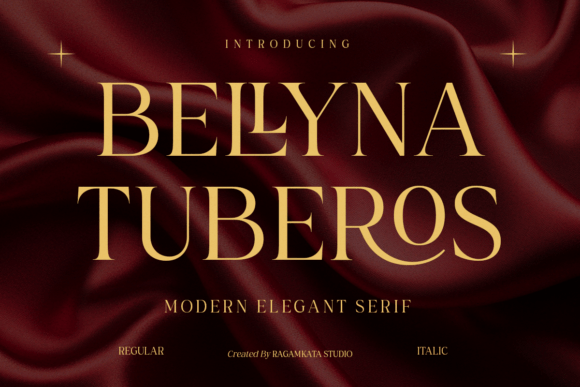
Elevate Your Design Aesthetic with Bellyna Tuberos
I’ll never forget the moment I stumbled upon the perfect font for a luxury fashion brand I was working with. I had been searching for what felt like an eternity, trying out font after font, but nothing seemed to capture the essence of high-end style I was looking for. That was until I discovered Bellyna Tuberos, a modern elegant serif from Ragamkata Studio that redefines high-end typography. In this article, I’ll share my experience with this stunning font, its features, and how you can use it to elevate your design aesthetic.
A Personal Design Moment: Finding the Perfect Font
I was working on a project for a luxury fashion brand, and I needed a font that exuded sophistication, elegance, and a touch of artisanal quality. I scoured the internet, tried out numerous fonts, but none seemed to fit the bill. I was on the verge of giving up when I stumbled upon Bellyna Tuberos. Its high-contrast strokes and sophisticated ligatures immediately caught my attention, and I knew I had found the perfect font for the job.
An Honest Review of Bellyna Tuberos
• High-contrast strokes that add a touch of elegance to any design ✅
• Sophisticated ligatures that create a rhythmic visual elegance ✨
• Versatile font family with both Regular and Italic styles, perfect for editorial masterpieces and boutique identities alike 📚
• Perfect for luxury brands, fashion houses, jewelry designers, and high-end skincare brands 💅
• May not be suitable for body text due to its elegant, yet refined nature ⚠️
• Some users may find the font’s high-contrast strokes challenging to read at smaller sizes 📊
The Backstory of Bellyna Tuberos
Bellyna Tuberos was designed by Ragamkata Studio with the goal of creating a modern elegant serif that redefines high-end typography. The font’s creator drew inspiration from classic serif fonts, adding a touch of sophistication and elegance to create a truly unique font family.
Q: What is Bellyna Tuberos?
A: Bellyna Tuberos is a modern elegant serif font from Ragamkata Studio, designed to redefine high-end typography.
Q: What is Bellyna Tuberos suitable for?
A: Bellyna Tuberos is perfect for luxury brands, fashion houses, jewelry designers, and high-end skincare brands looking to project an image of sophistication and elegance.
Q: Can I use Bellyna Tuberos for body text?
A: While Bellyna Tuberos is an elegant font, it may not be suitable for body text due to its refined nature. It’s best used for headlines, titles, and other display text.
Q: What OpenType features does Bellyna Tuberos support?
A: Bellyna Tuberos supports OpenType features like ligatures, stylistic alternates, and glyphs, allowing you to add an extra layer of sophistication to your design.